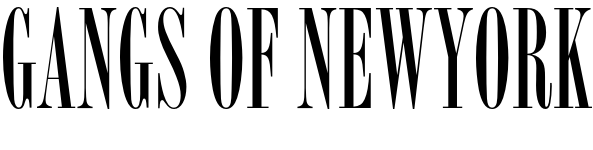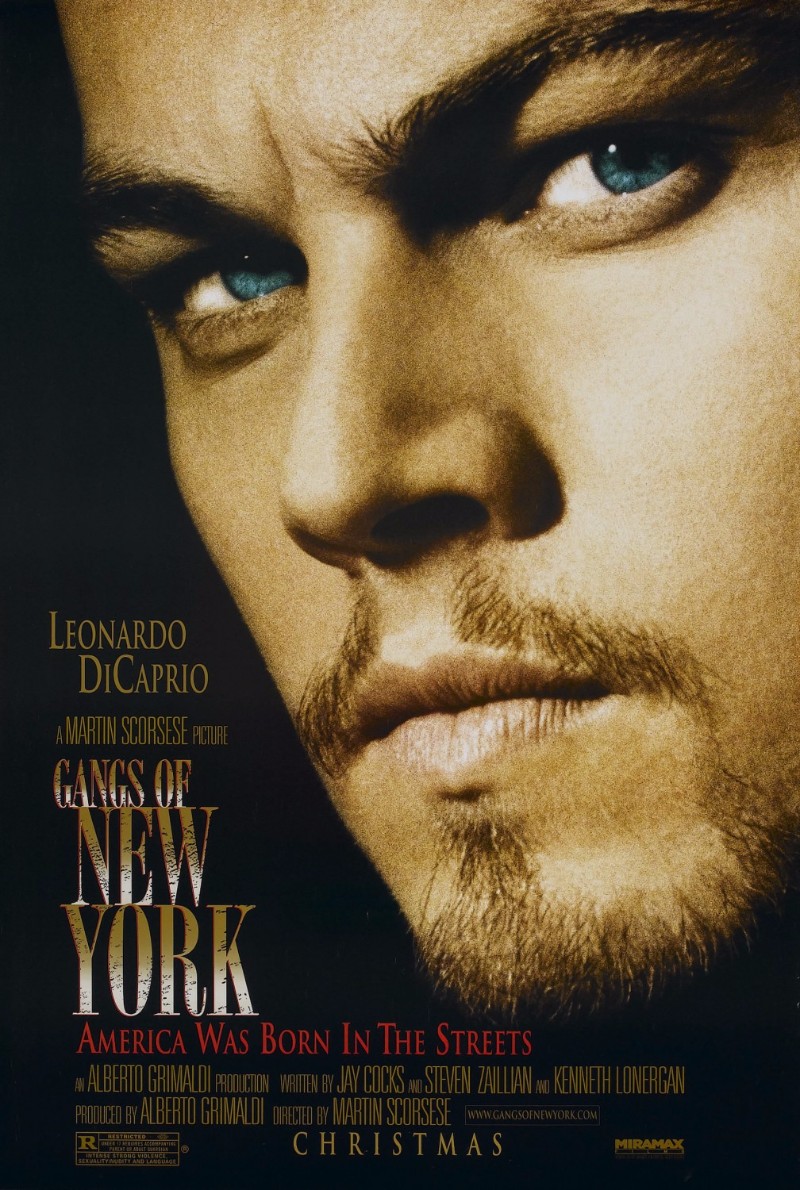
Gangs of New York Font
Fonts in UseGangs of New York is a 2002 historical drama film directed by Martin Scorsese, starring Leonardo DiCaprio, Cameron Diaz, and Daniel Day-Lewis. Set in 1862, it follows the story of Amsterdam Vallon as he seeks revenge against the man who killed his father in a gang war in the Five Points district of New York City.
The film title on the poster seems to use a font called Bordeaux Bold, designed by David Quay. Bordeaux's serif style captures the Romantic era's emotive quality seen in works by Hugo, Berlioz, and Andersen.